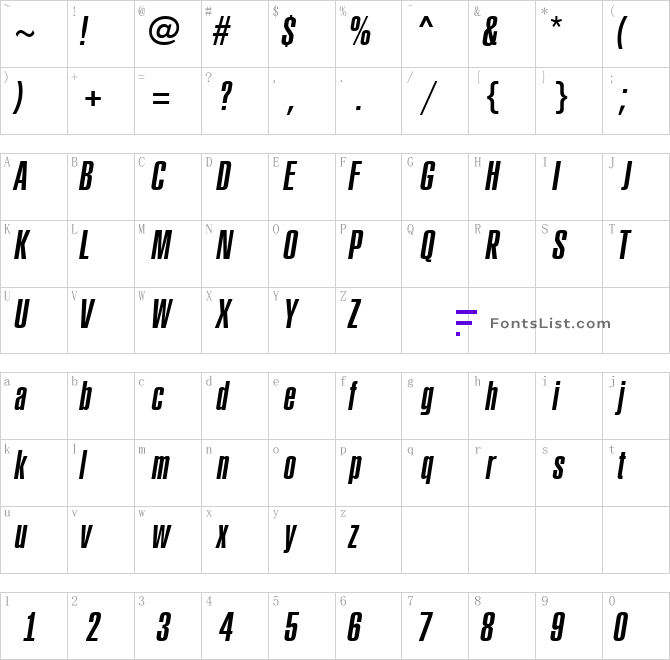
- Font Name:a_RubricaXtCn
- Full Name:a_RubricaXtCn Italic
a_RubricaXtCn-Italic.ttf is a very beautiful artistic font, a_RubricaXtCn-Italic.ttf is widely used in the design and printing of various books and pictures,a_RubricaXtCn-Italic.ttf has a strong visual impact,a_RubricaXtCn-Italic.ttf is a commonly used font in newspapers, magazines and books, and is used in posters, e-commerce Poster design, store design, logo design, font design and other fields.a_RubricaXtCn-Italic.